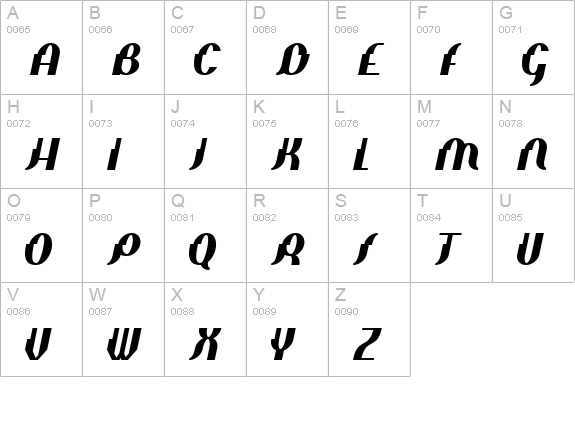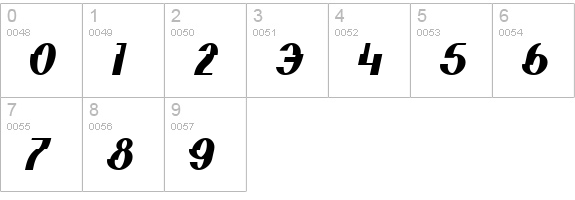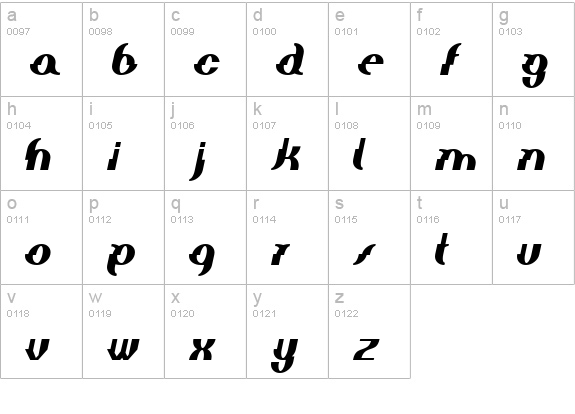
Elephant man BoldItalic Font Details
Introducing Elephant Man BoldItalic font, a striking and commanding typeface designed to make a bold statement. With its unique blend of strength and elegance, this font is perfect for headlines, titles, and branding projects that demand attention. The Elephant Man BoldItalic font features a distinctive italicized style that adds a touch of sophistication to any design. Its bold letterforms exude power and confidence, making it an ideal choice for projects that require a strong and impactful visual presence. And the best part? Elephant Man BoldItalic font is available for free download at FontsMarket.com. So go ahead and elevate your designs with this eye-catching and versatile typeface today!